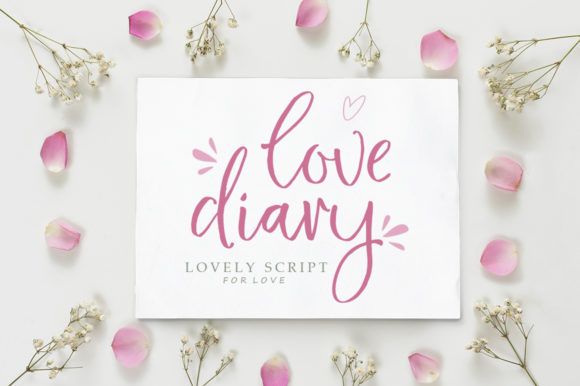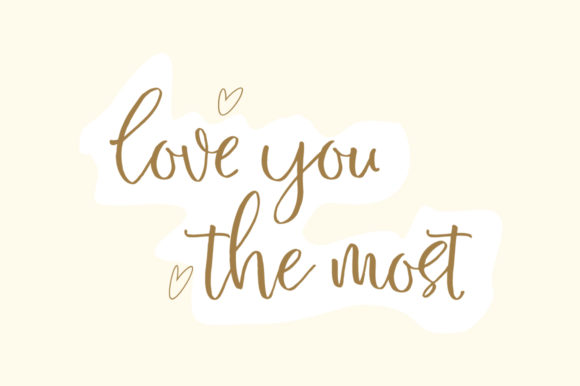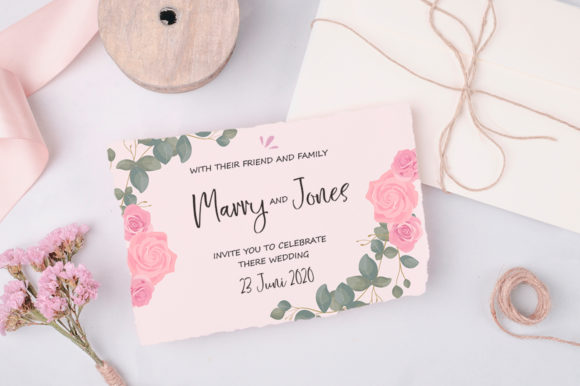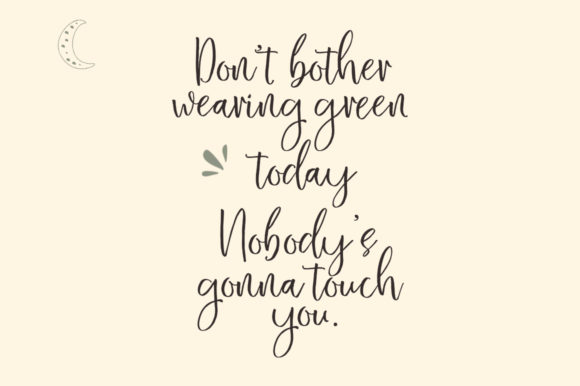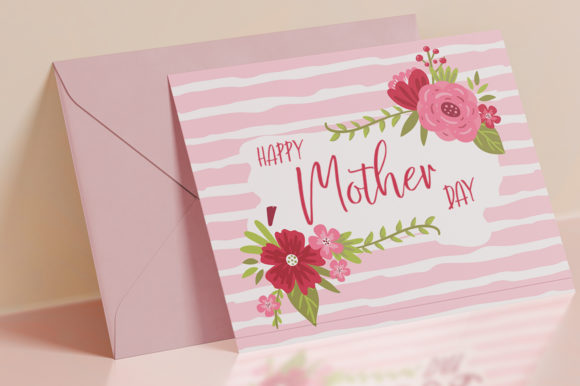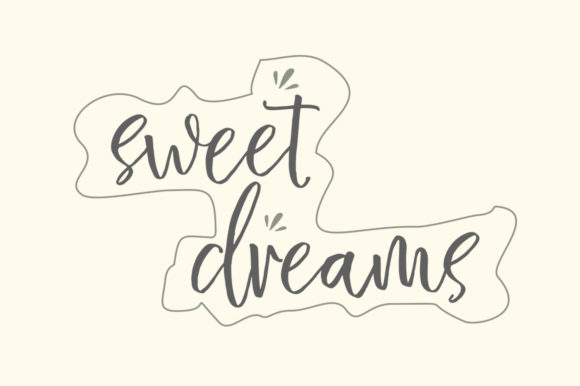
Love Diary Font
About Love Diary Font
Love Diary is a friendly and modern script font with a unique style. It will add a romantic touch to any crafting project.